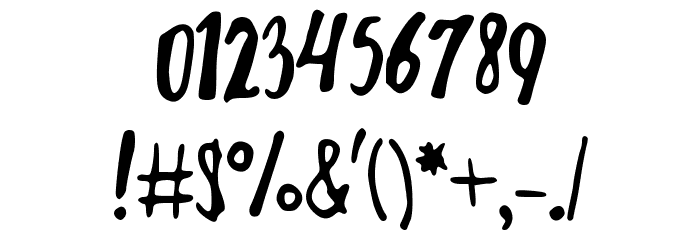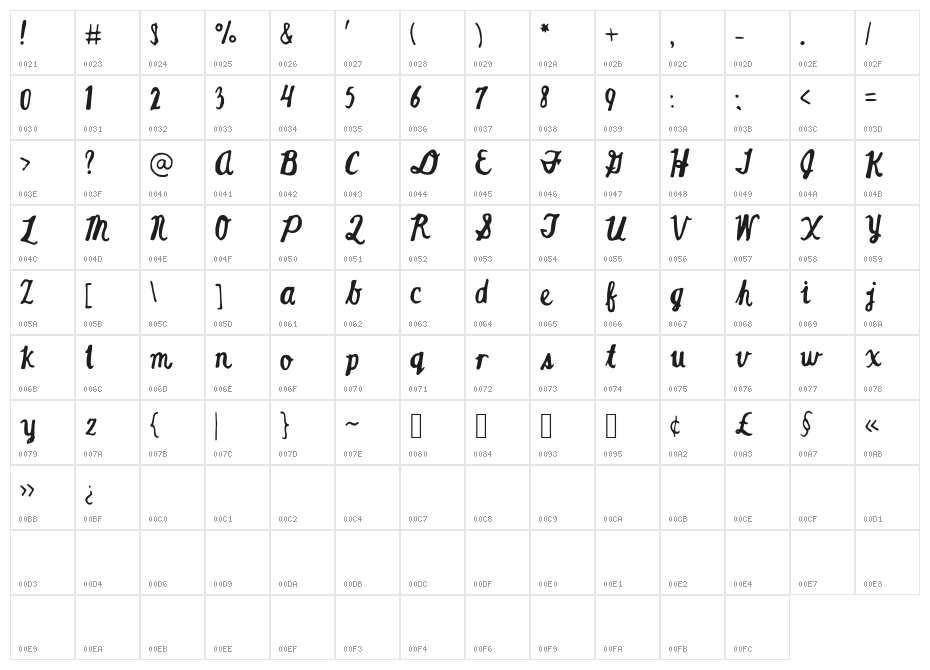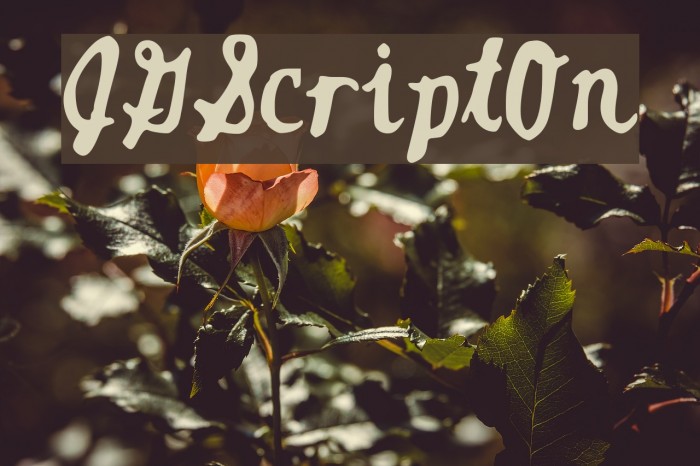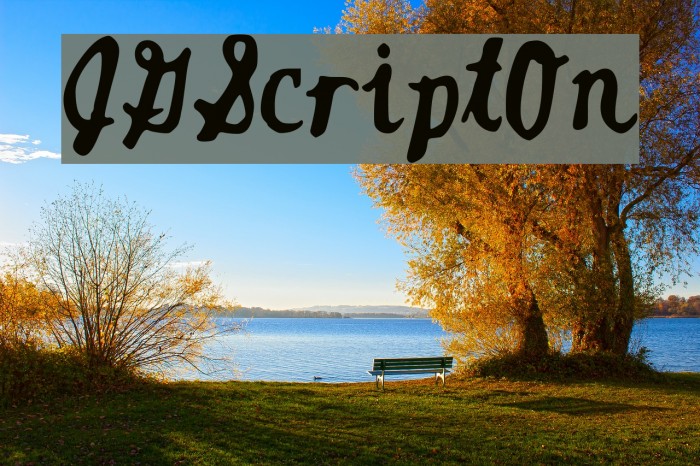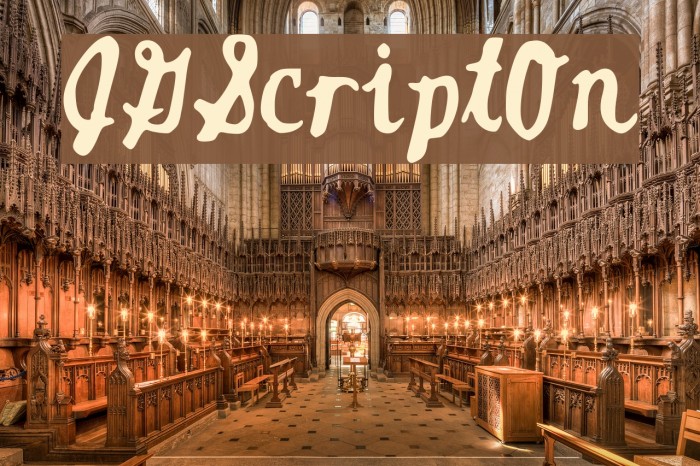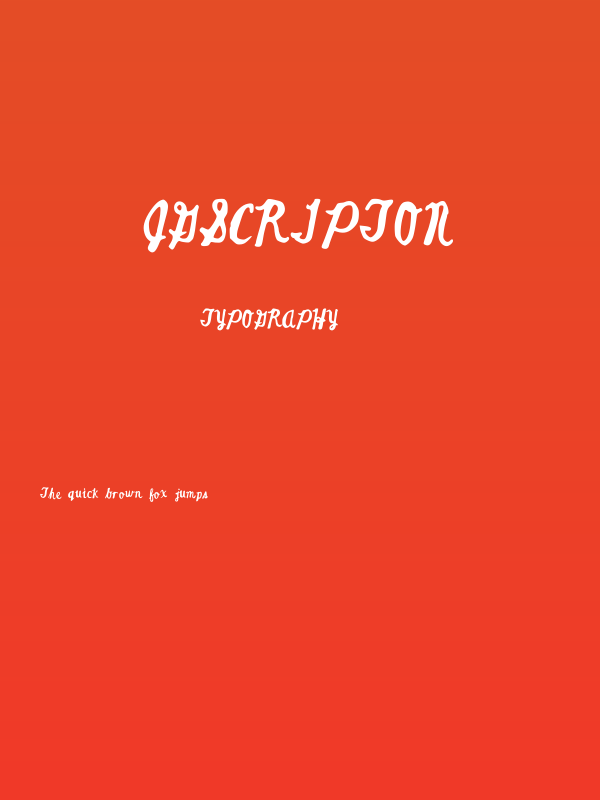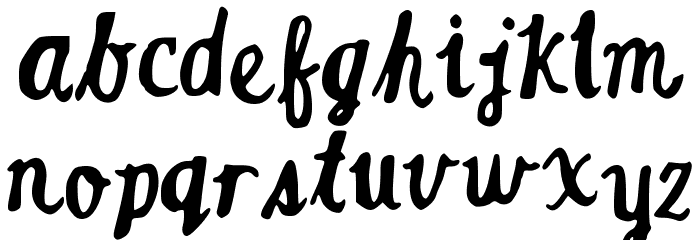
JGScriptOn Font
JGScriptOn Description
This font features a bold and expressive script style, characterized by its fluid and dynamic strokes. The letters are connected in a cursive manner, giving it a handwritten appearance. The uppercase letters are slightly more elaborate, with decorative flourishes that add a touch of elegance. The lowercase letters maintain a consistent flow, enhancing readability while preserving the artistic flair. Numbers and special characters are designed to match the overall aesthetic, ensuring a cohesive look across all text elements. This font is ideal for projects that require a personal and artistic touch, such as invitations, greeting cards, and creative branding.